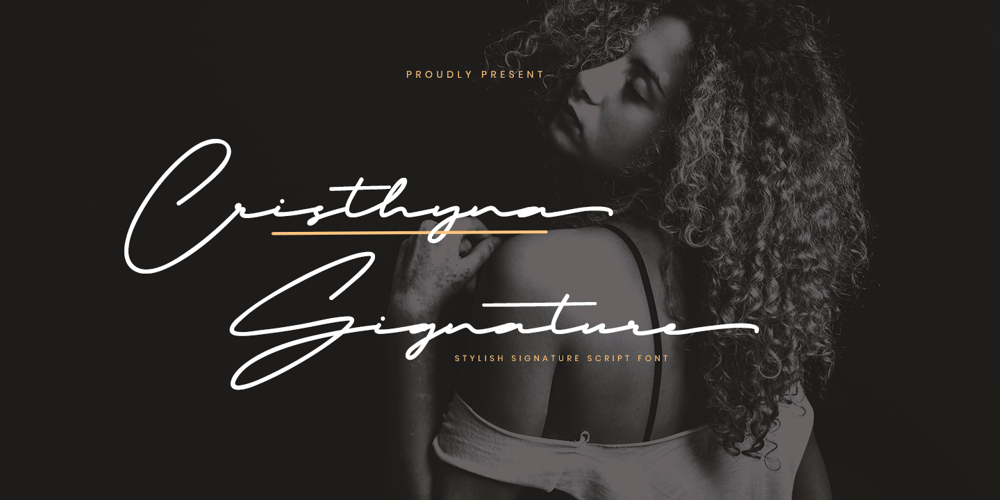
Cristhyna Signature
Cristhyna Signature font
Cristhyna Signature Font Family was designed by Eep Apringga and published by Namara Creative Studio. Cristhyna Signature contains 1 styles and family package options. Cristhyna Signature is a modern handwritten script font with natural and stylish flow, this Typeface is an incredible addition to your font library. Perfect for business branding, wedding invitation, cosmetics, fashion, signature logo, magazine cover, advertising and these typefaces work well for many different aesthetics.Features : Stylish & Modern Font Alternates, Ligatures & Multilingual Support